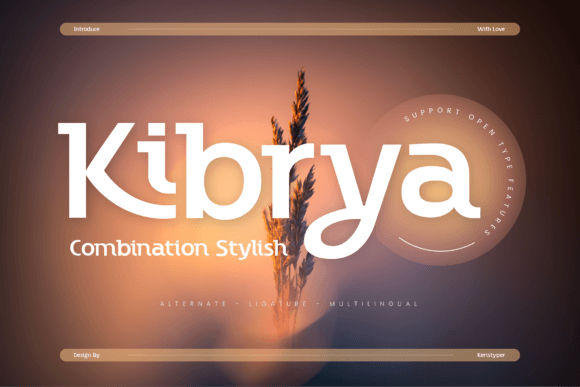
Are you tired of using the same old boring fonts for your creative projects? Look no further than Kibrya Font! This incredible font, created by Keristyper, is a game-changer in the world of typography. With its playful blend of serif and sans-serif, it brings a touch of fun and creativity to your designs like never before.
Kibrya Font is not just your average font. It's a versatile masterpiece that can be used in a wide variety of projects, from crafting eye-catching logos to designing stunning posters. Its unique combination of classic and modern styles creates a refreshing look that is sure to make your designs stand out from the crowd.
But why settle for ordinary when you can have extraordinary? Kibrya Font goes beyond the boundaries of traditional fonts, giving your projects that wow factor you've been searching for. Its captivating curves and elegant lines will capture the attention of your audience and leave a lasting impression.
Imagine the impact Kibrya Font can have on your social media graphics. With just a few clicks, you can transform your posts into visually stunning masterpieces that will stop users in their tracks. Whether you're promoting a product or sharing a quote, this font will elevate your content and make it impossible to scroll past.
And let's not forget about its application in creating a creative CV. Your resume deserves to be noticed, and Kibrya Font is the secret ingredient that will make it shine. Its playful charm adds a touch of personality to your professional profile, making you memorable to potential employers.